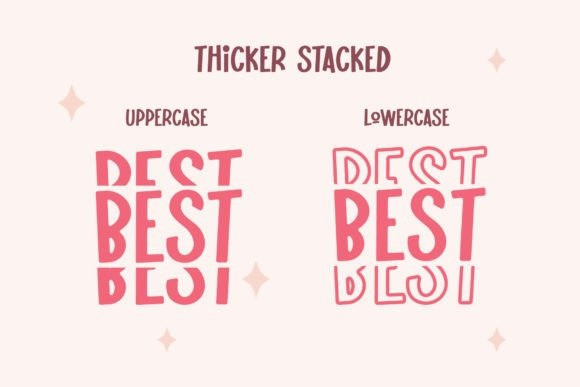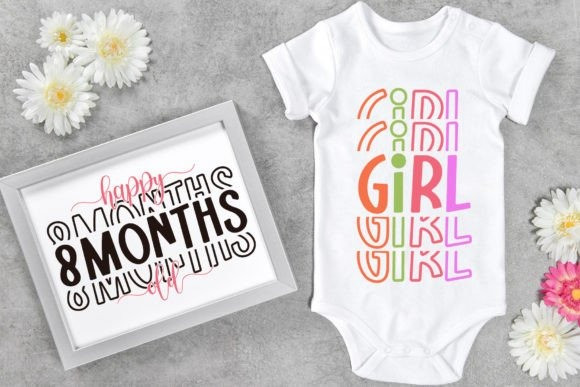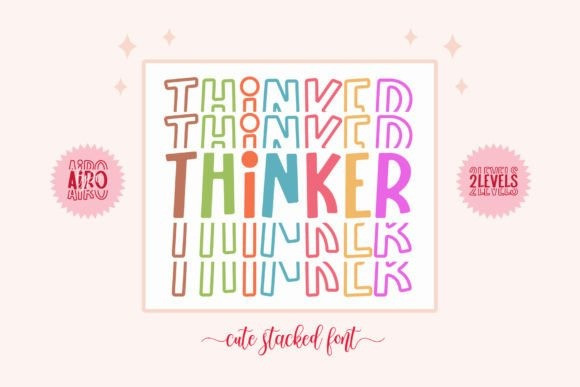
Thinker Stacked Font
Thinker Stacked Font is a fun and playful stacked display stacked font.It will work great for any crafting project, such as a poster, t-shirt quotes, mugs, stickers, sublimation, etc.